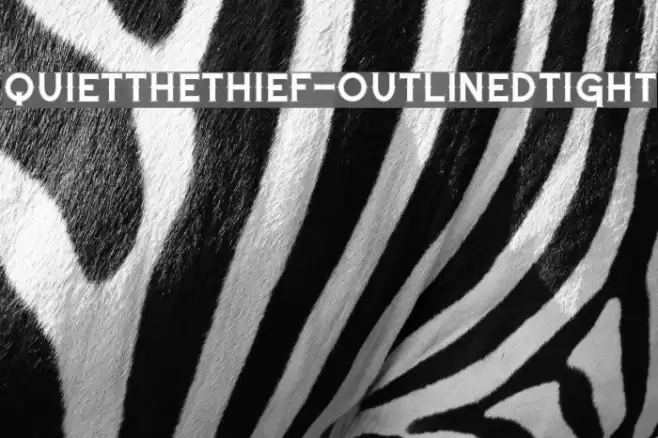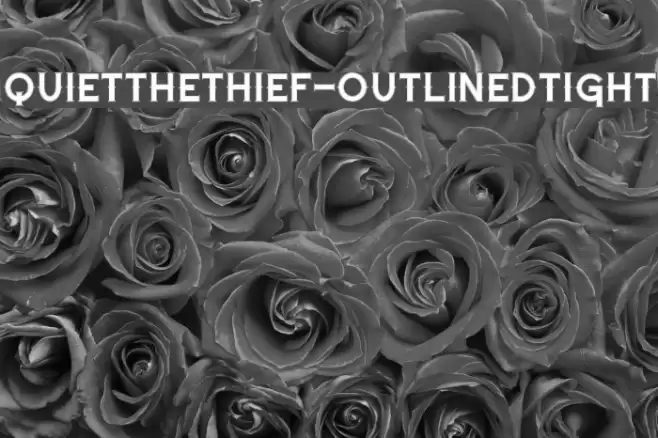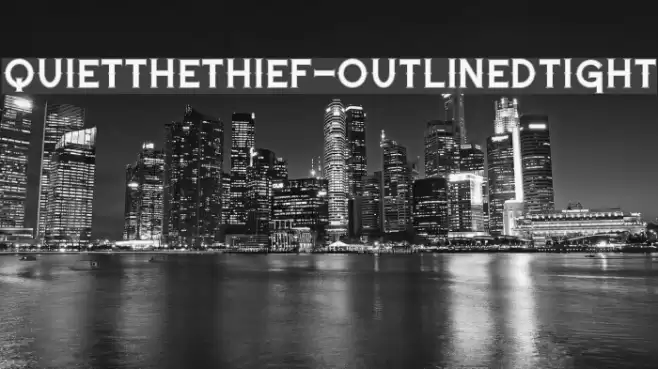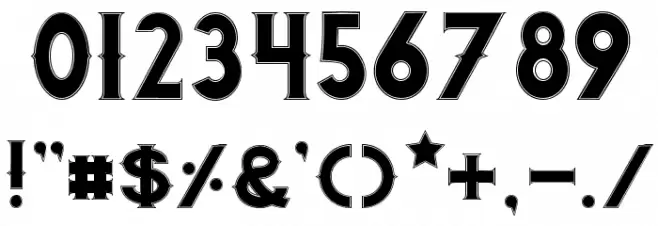
QuiettheThief-OutlinedTight Font
QuiettheThief-OutlinedTight Description
This font features a bold, outlined style with a distinct geometric flair. The uppercase letters are characterized by sharp angles and clean lines, giving them a modern and edgy appearance. The lowercase letters maintain the same geometric precision, ensuring consistency throughout the typeface. Numerals are equally bold and striking, with a uniform thickness that complements the overall design. Special characters are crafted with the same attention to detail, making them stand out while remaining cohesive with the rest of the font. The outlined nature of the font adds a layer of depth, making it suitable for eye-catching designs.
A bold, outlined geometric font with sharp angles and clean lines from Uncategorized fonts.
- Proposed Projects: Ideal for branding, posters, headlines, and any design requiring a modern, impactful look.